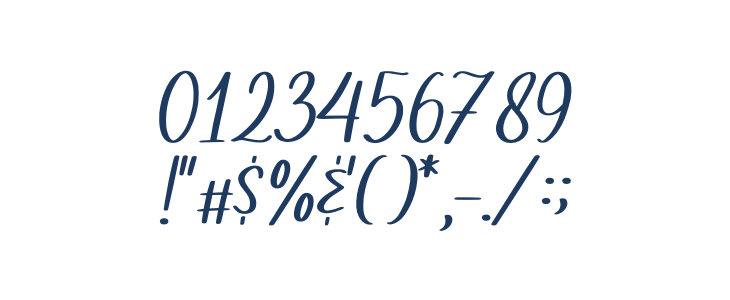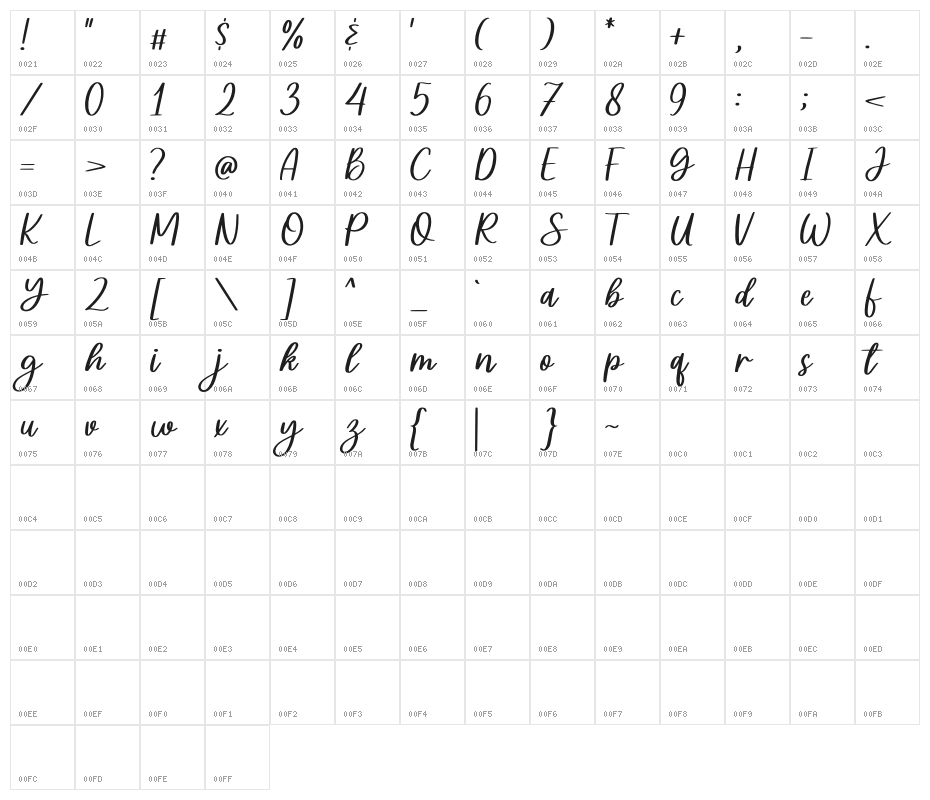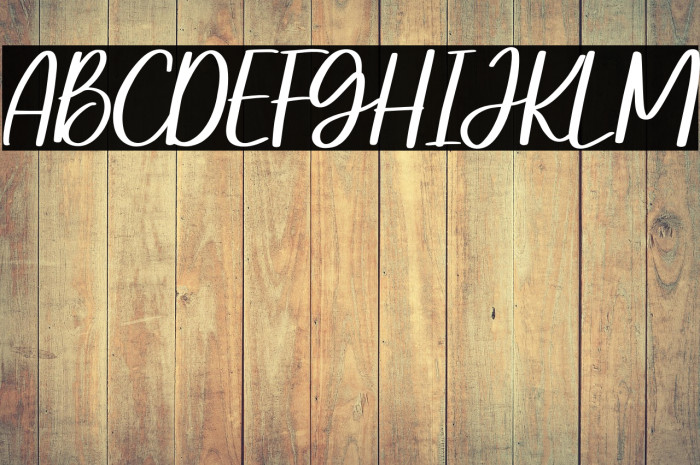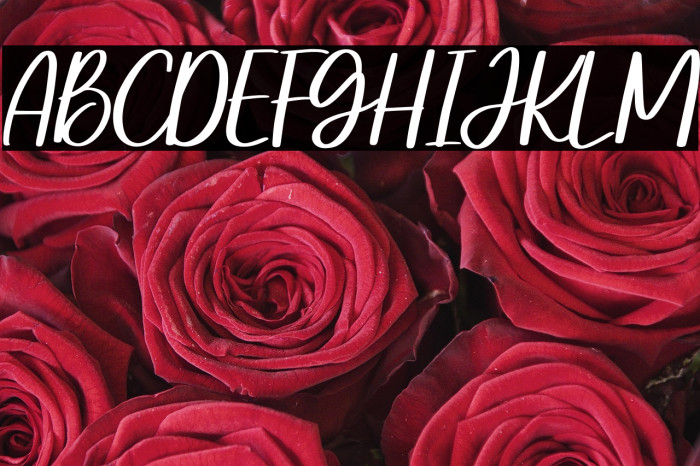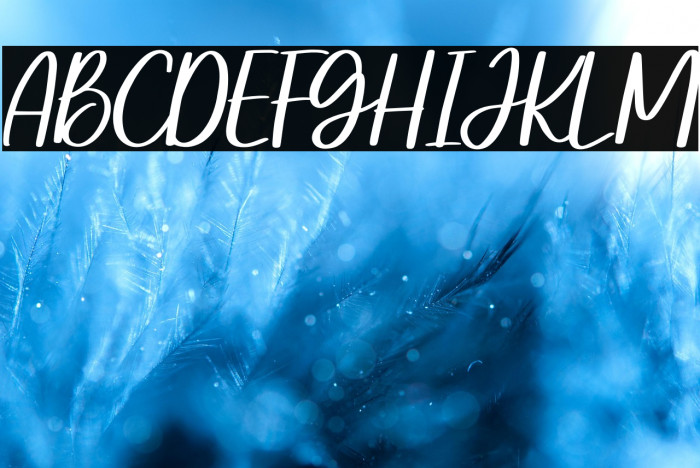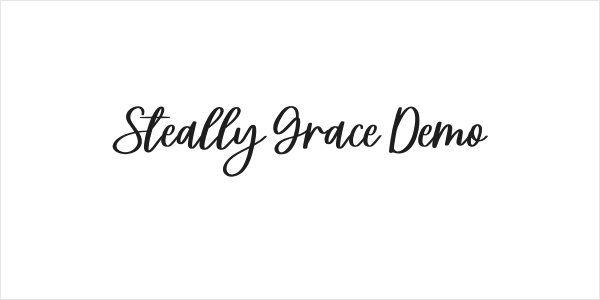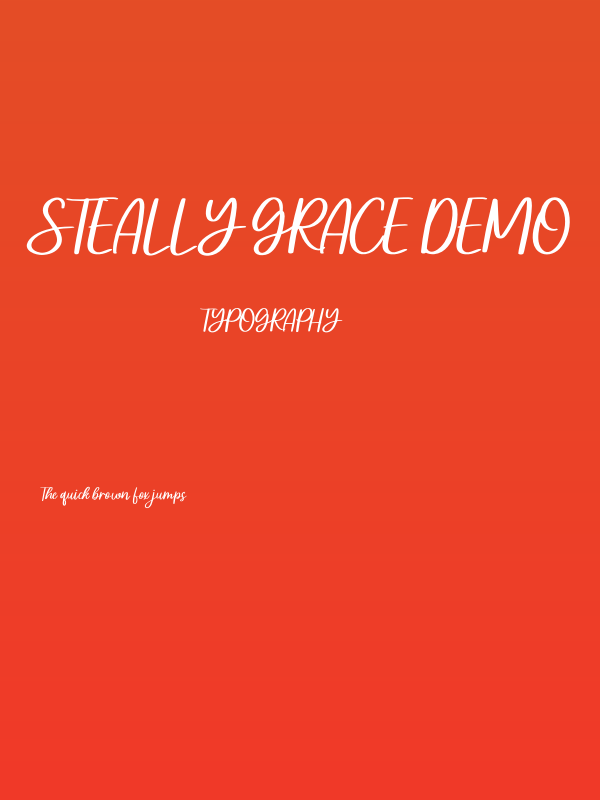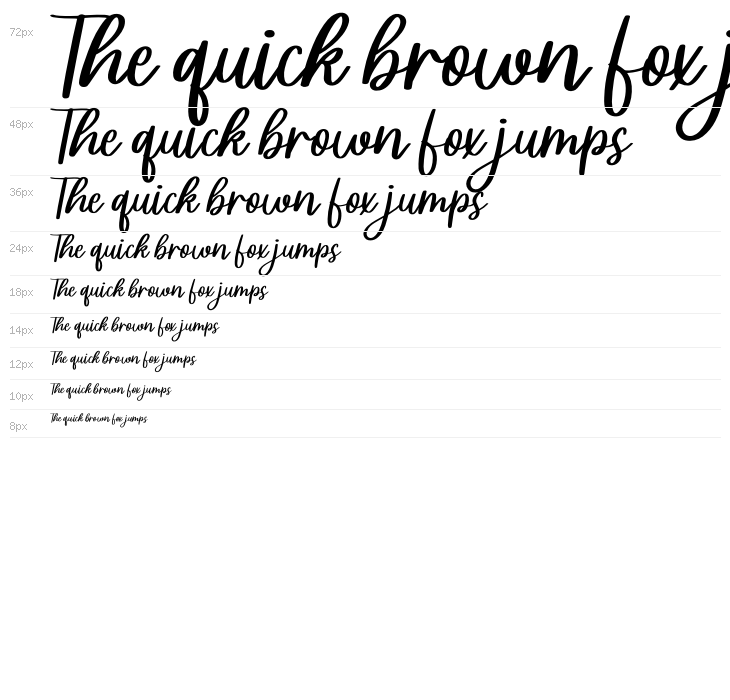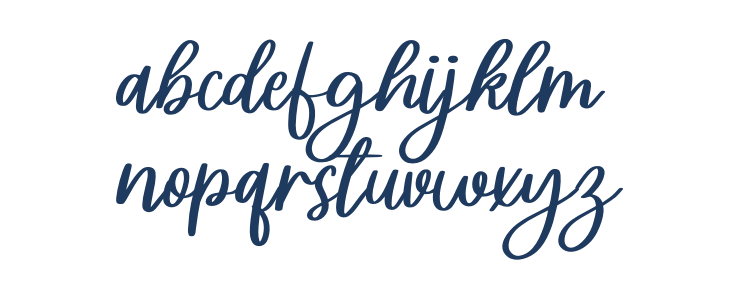
Steally Grace Demo Font
Steally Grace Demo Description
This font exudes a lively and elegant script style, characterized by its fluid, connected strokes and a handwritten appearance. The uppercase letters are tall and slender, with a graceful flow that adds a touch of sophistication. The lowercase letters maintain a consistent rhythm, enhancing readability while preserving the font's artistic flair. Numbers and special characters follow the same cursive style, ensuring a cohesive look across all text elements. The overall design is both modern and timeless, making it suitable for a variety of creative applications.